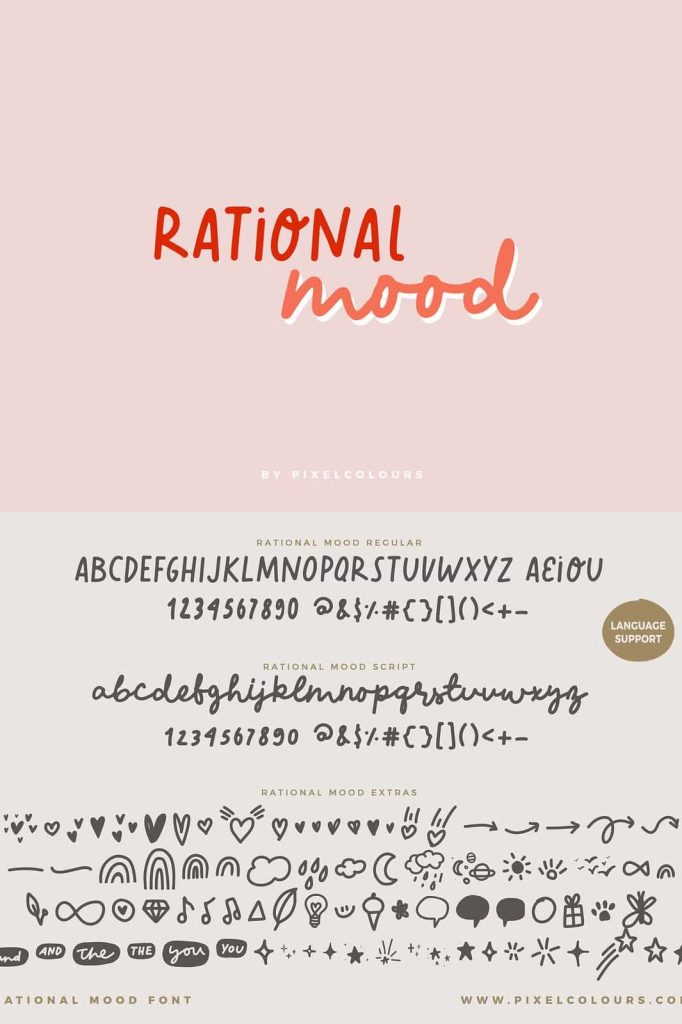
Script Font Rational MoodleastedJuly 10, 2025Fonts Rational Mood Font is a handwriting font trio that includes an uppercase, script and tons of extra illustrations Download